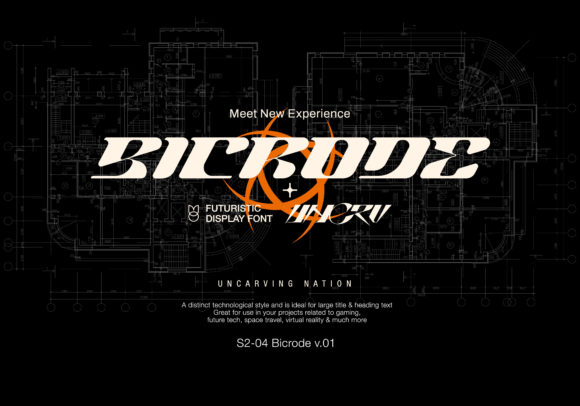
Journey into the realm of digital aesthetics with Bicrode Font, a masterpiece crafted by Un Carving. This modern and cool display font is not just a collection of letters; it's a gateway to expressing your unique style in the vast digital landscape. With its sleek, futuristic lines and a subtle hint of contrast, Bicrode is the perfect companion for your creative endeavors.
Imagine your designs adorned with Bicrode's captivating curves, each stroke meticulously shaped to evoke a sense of innovation and progress. Whether you're a tech startup looking to make a bold statement or a creative professional seeking to elevate your branding, Bicrode is your font of choice. Its versatility knows no bounds, adapting seamlessly to logos, branding, and web headings.
Witness the transformation as Bicrode breathes life into your creative visions, making them stand out from the crowd. Its smooth, flowing lines create a sense of effortless elegance, while the subtle contrast adds depth and dimension to your designs. Unleash your creativity and let Bicrode be your artistic muse, guiding you to design greatness.
With Bicrode Font, you'll embark on a journey of self-expression, leaving an indelible mark on the digital world. Its modern aesthetic and captivating presence will capture attention, leaving a lasting impression on your audience. Join the ranks of design visionaries who have embraced Bicrode, propelling their creative endeavors to new heights. Embrace the future of design with Bicrode Font, and let your imagination soar.